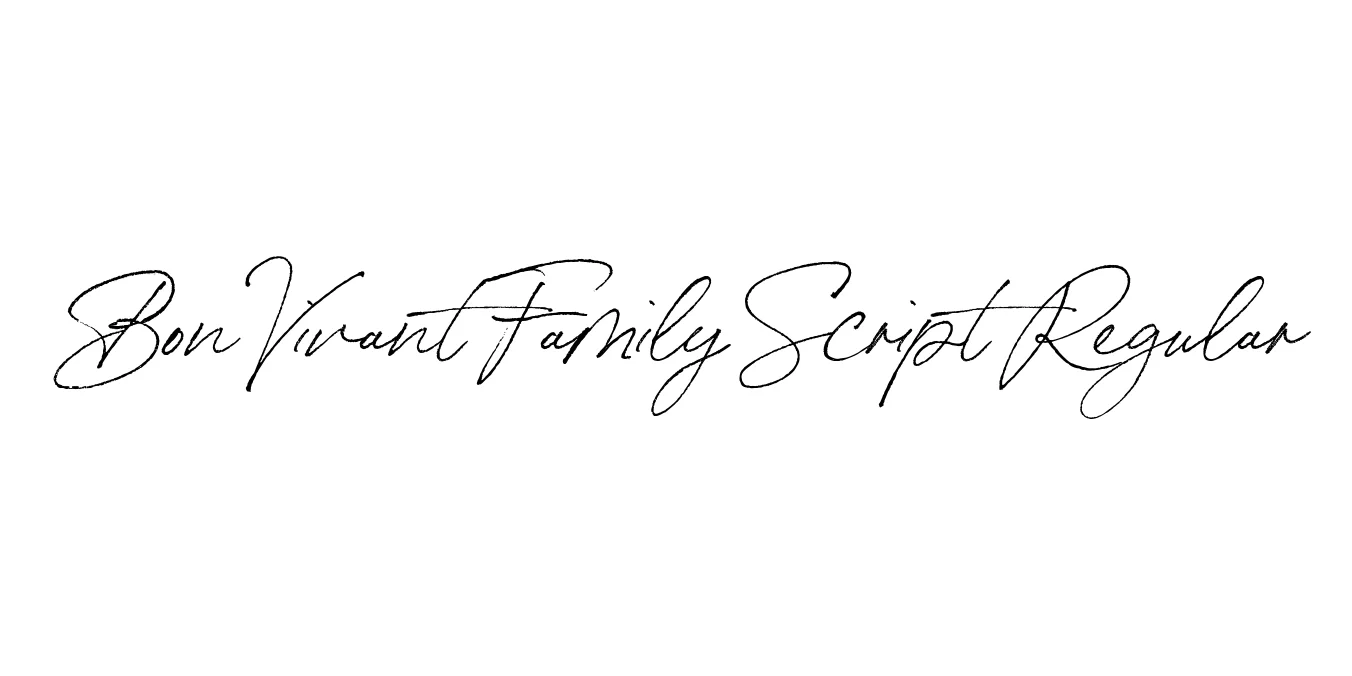
Bon Vivant Family Script Regular
Designed by Nicky Laatz
Bon Vivant Family Script Regular is a sophisticated and elegant typeface designed by the renowned type designer Nicky Laatz. Released as part of a high-end font duo, this script variant captures the essence of luxury and effortless style. Its fluid, hand-drawn strokes and extensive OpenType features, including numerous ligatures and alternates, allow designers to create organic, custom-looking typography that mimics authentic calligraphy.
This typeface is particularly celebrated for its "high-society" aesthetic, making it a staple in branding, wedding invitations, and luxury packaging. The Bon Vivant Family was crafted to bring a sense of indulgence and refinement to digital and print media, ensuring that every character flows seamlessly into the next for a professional, high-end finish.
Bon Vivant Family Script Regular Best Uses
Perfect for elegant, personalized stationery and RSVP cards.
Ideal for high-end boutique logos and fashion identity design.
Adds a sophisticated touch to magazine headers and pull-quotes.
Great for creating stylish Instagram quotes and aesthetic graphics.
Excellent for premium cosmetic, perfume, or wine label designs.